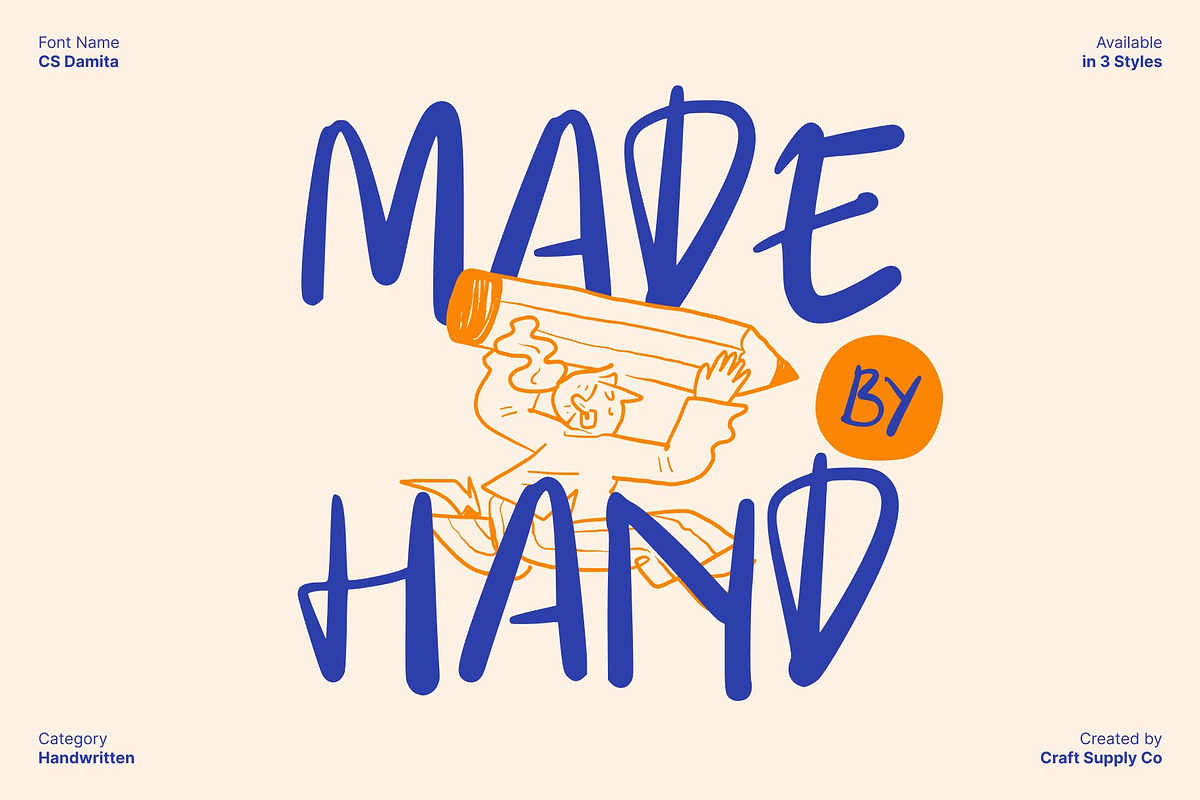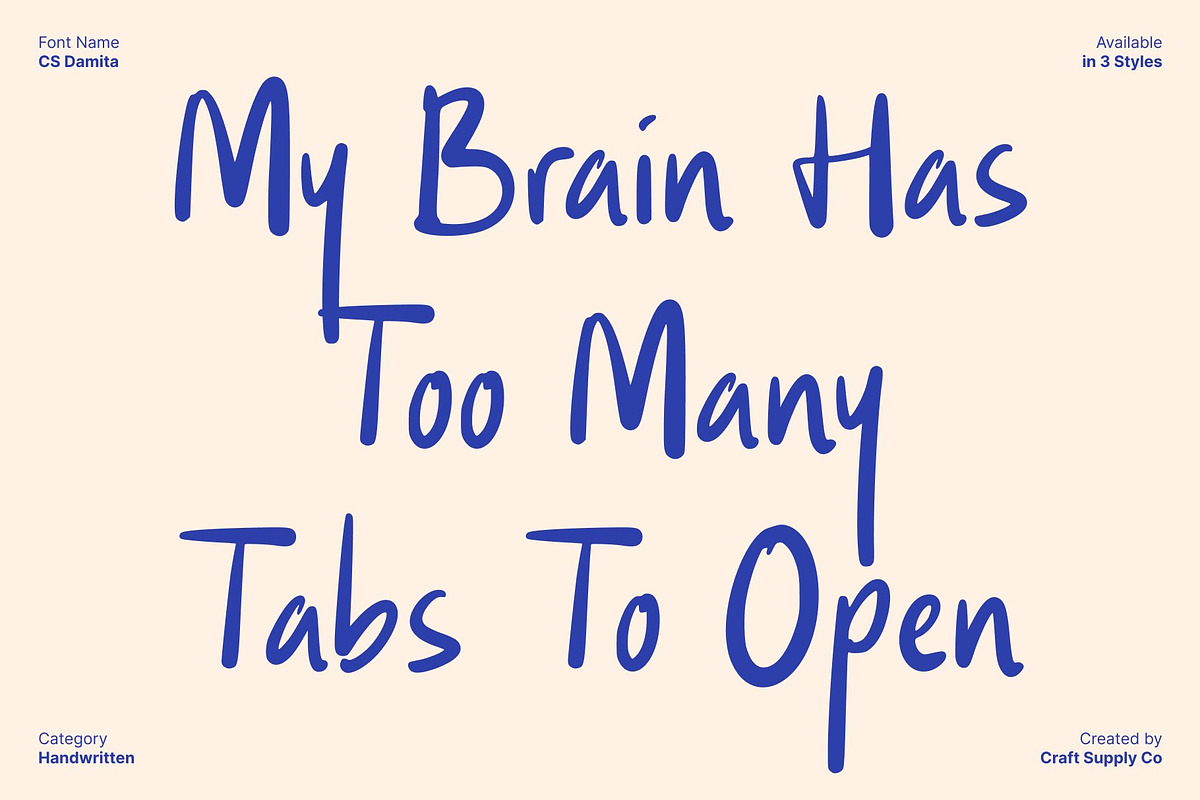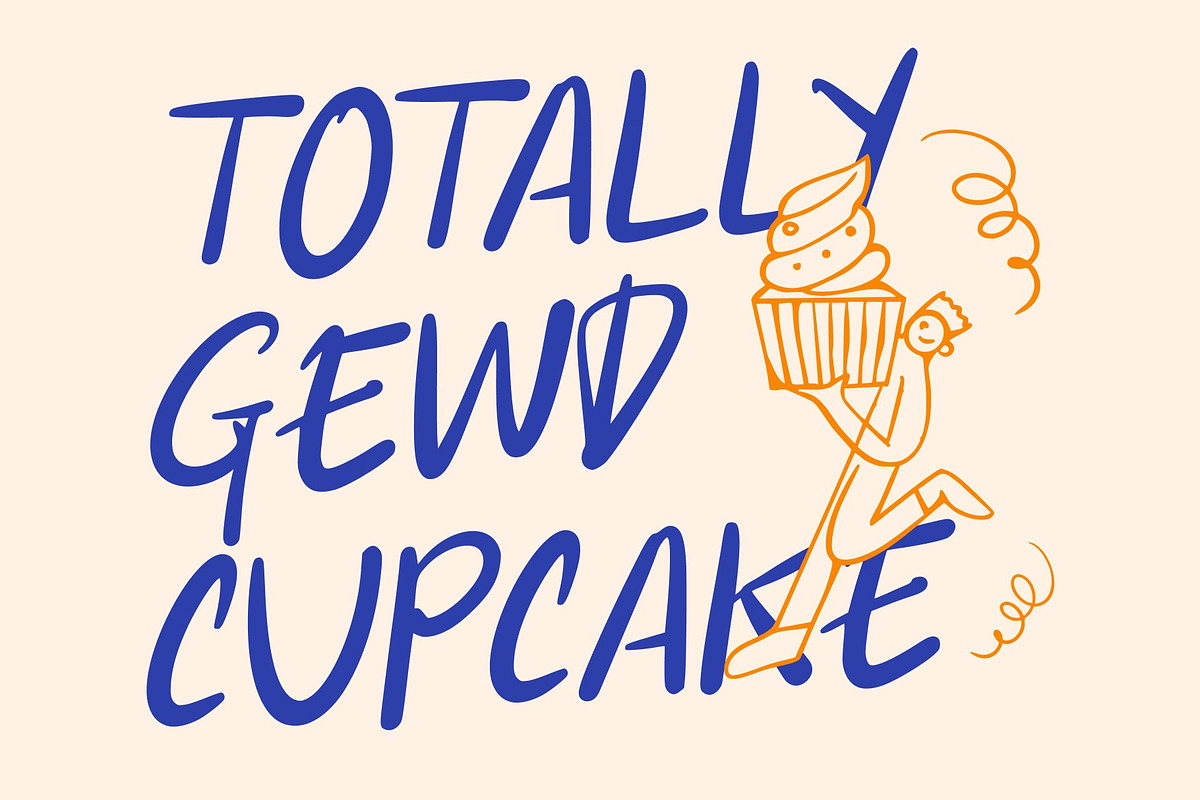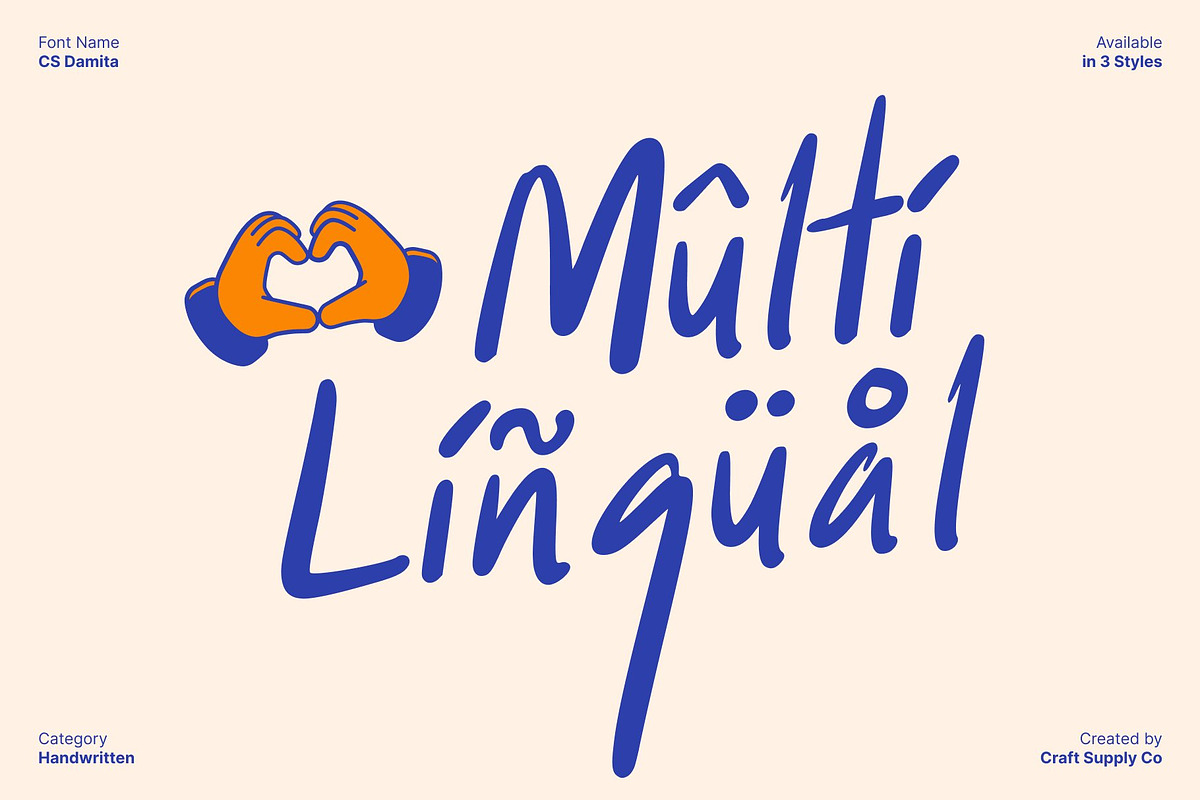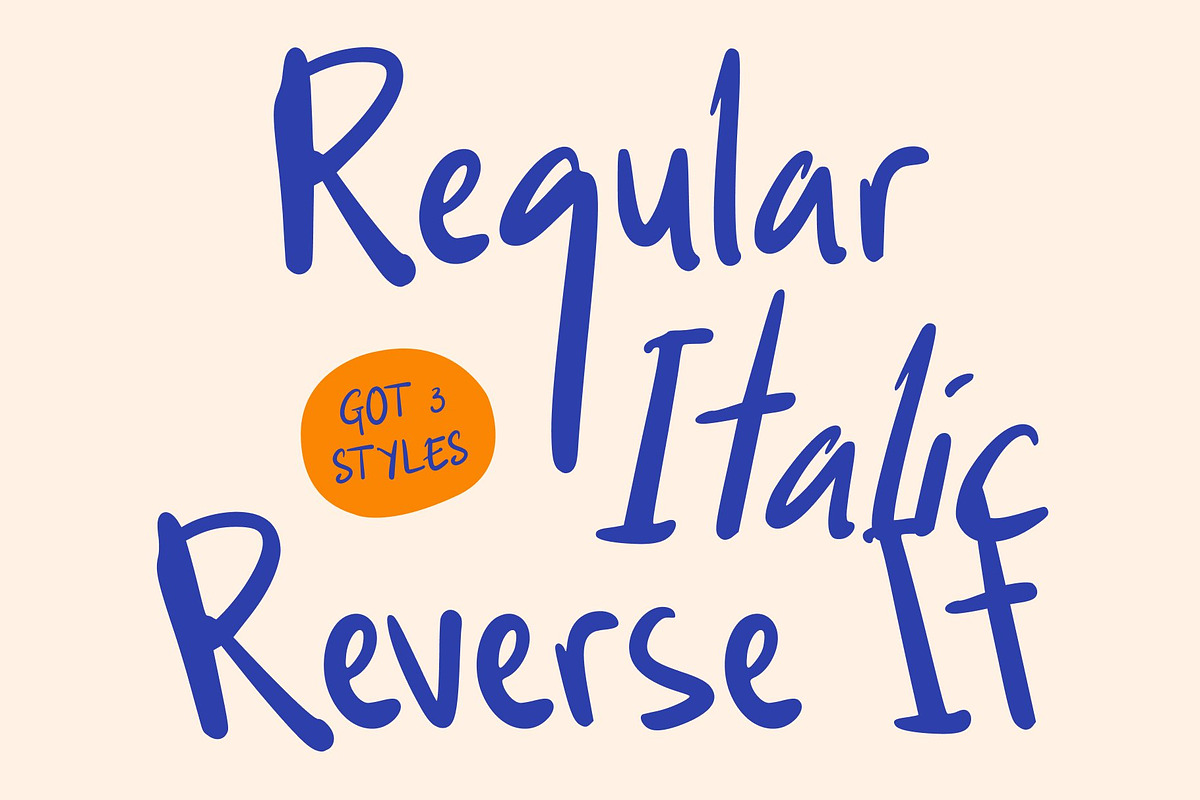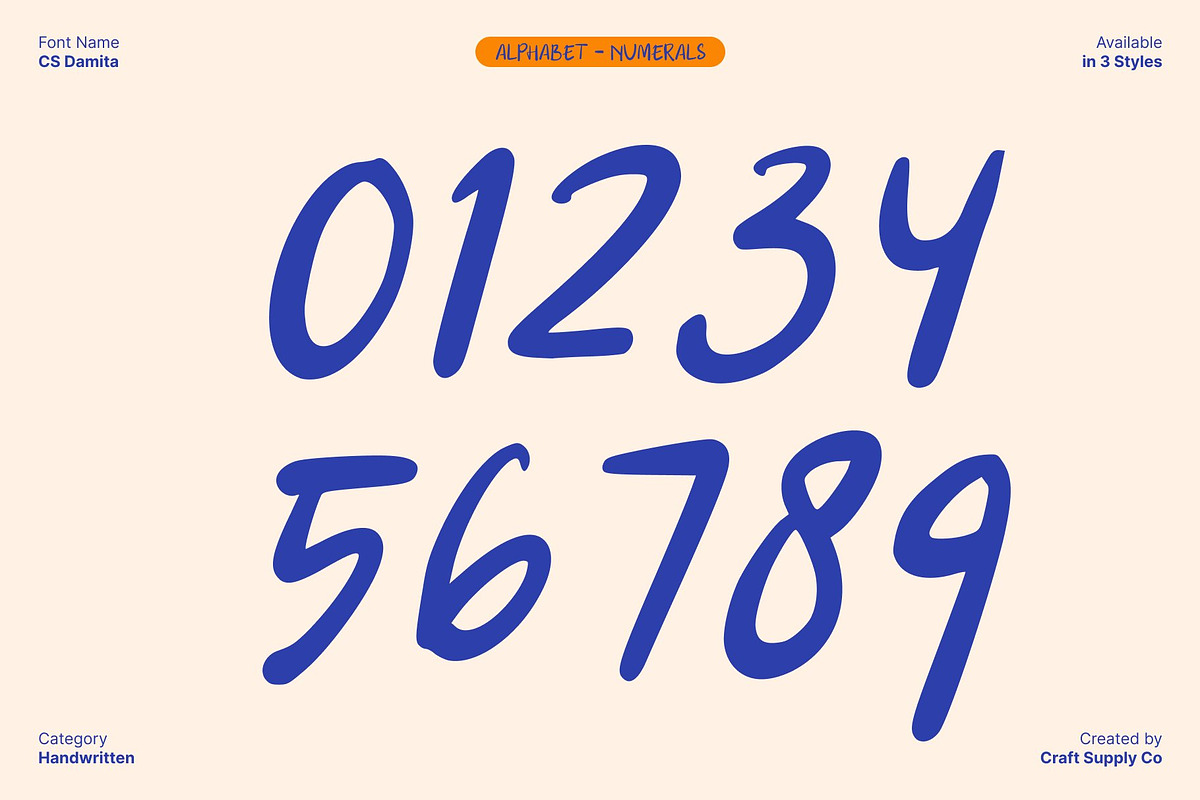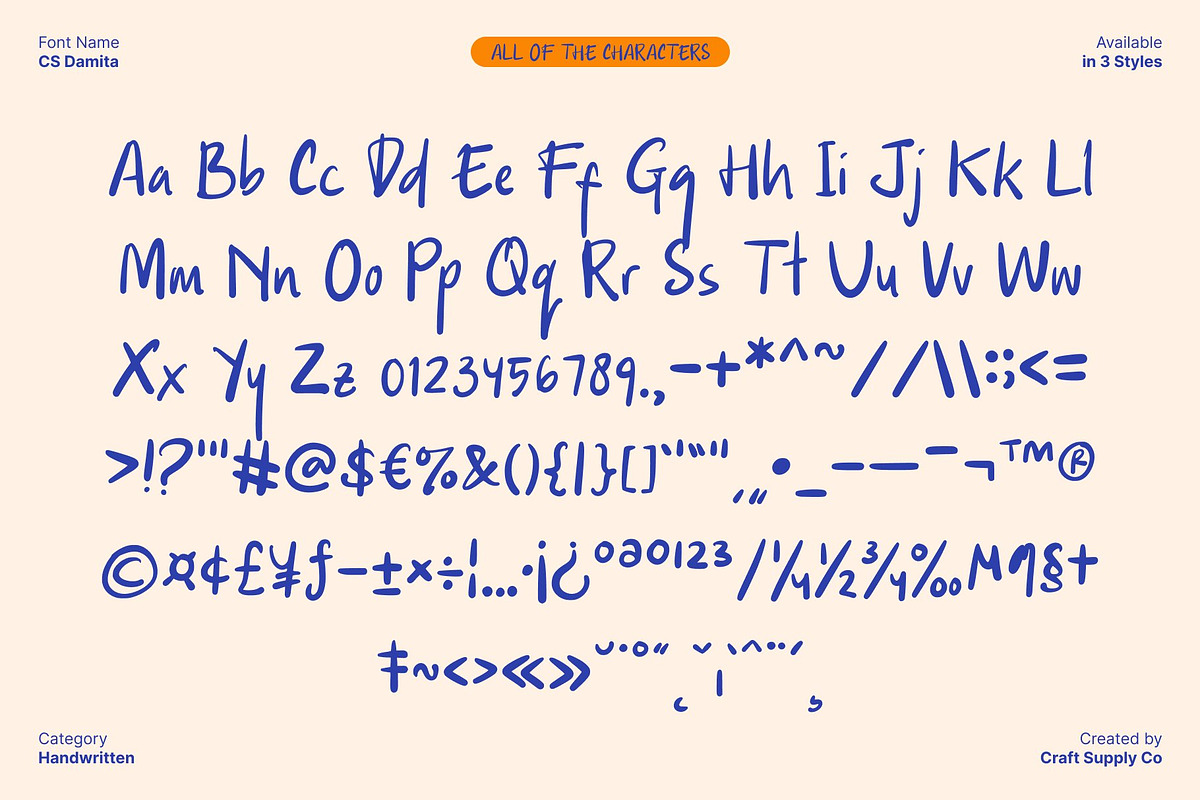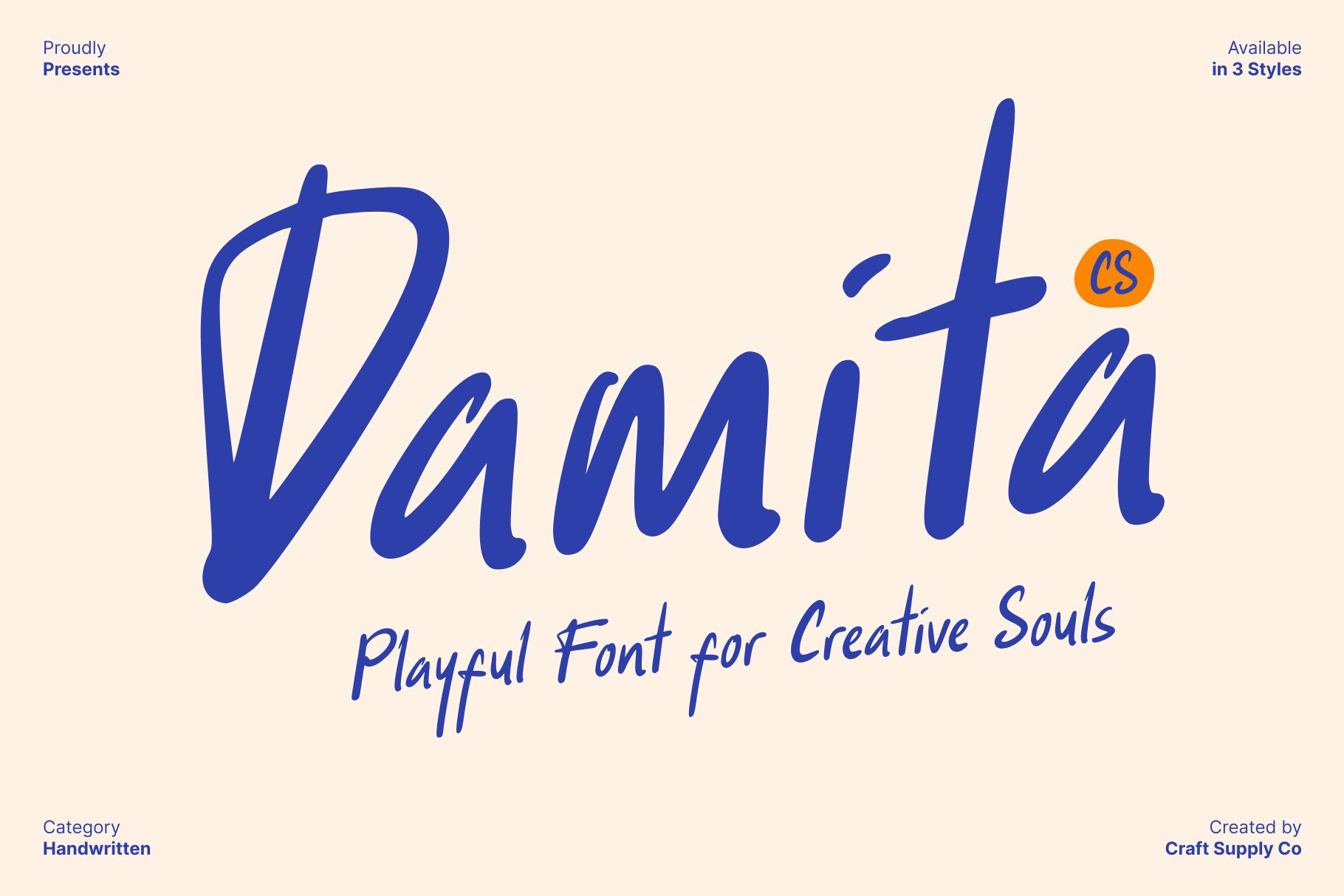
CS Damita – Handwritten Font
CS Damita – Soft Handwritten Display with Warm Authenticity
Natural Pen Strokes with Expressive Warmth This is a handwritten display font designed to capture the soft, expressive beauty of real pen strokes. Its gentle curves and organic movement create a soothing handwritten feel that looks sincere and inviting. Each letter carries a touch of natural charm, making the font perfect for designers who want to communicate authenticity, warmth, and personal connection through their typography.
Soft Curves for a Friendly, Approachable Look The softness in this font’s construction gives it an approachable and heartfelt presence. Its smooth strokes and subtle variations mimic genuine handwriting, creating a relaxed and effortless style. This gentle appearance enhances readability while maintaining a personal tone, making every design feel thoughtful and meaningful.
Expressive Flow for Creative, Emotional Designs This font’s expressive handwriting style adds personality and emotion to any layout. Its natural rhythm brings life to short phrases, titles, and quotes, helping your messages feel more intimate and expressive. The organic flow of each stroke adds depth and character, making it a wonderful tool for storytelling and emotionally driven visuals.
Perfect for Personal Branding, Quotes, and Casual Invitations Ideal for personal branding, quotes, and casual invitations, brings warmth and authenticity to a wide range of design projects. Use it for signature-style logos, heartfelt social media posts, friendly greeting cards, event materials, or journaling aesthetics.
- CS Damita Regular
- CS Damita Italic
- CS Damita Reverse Italic